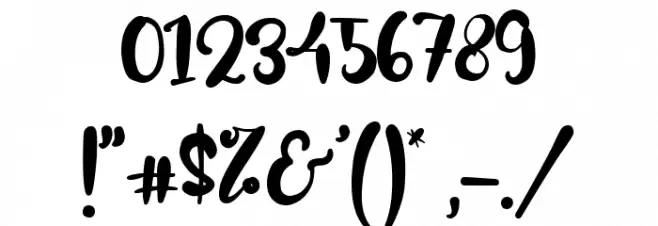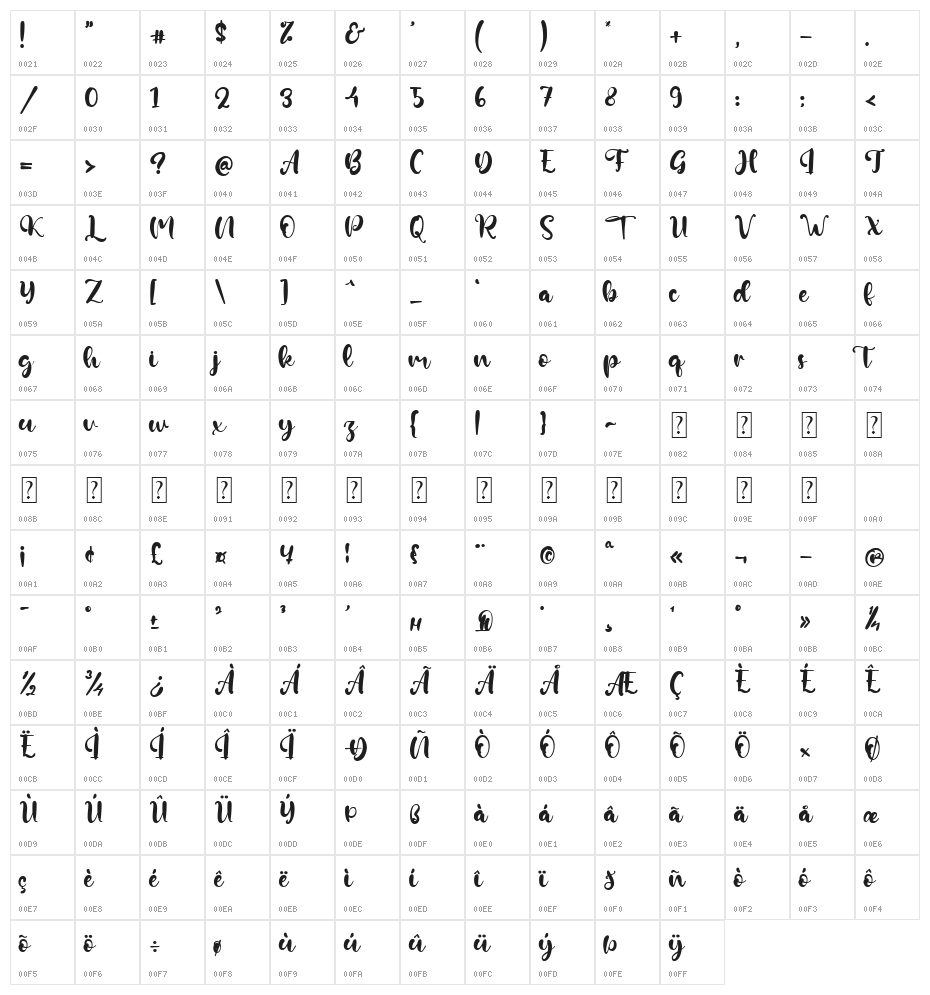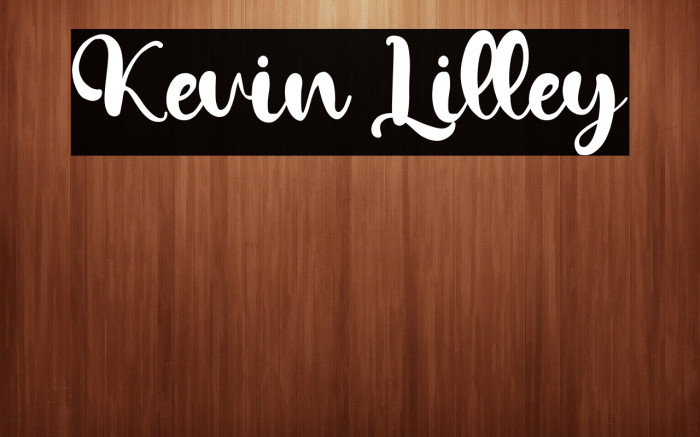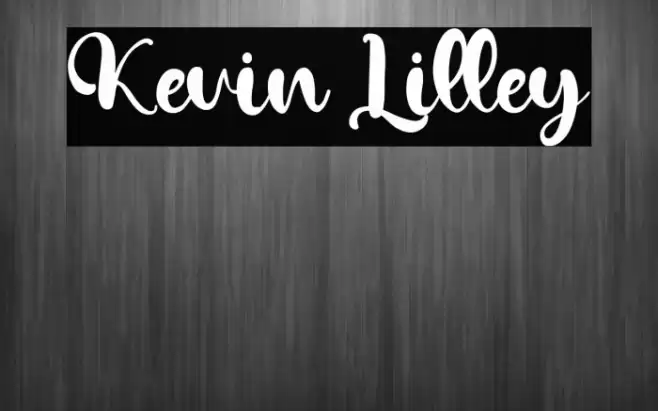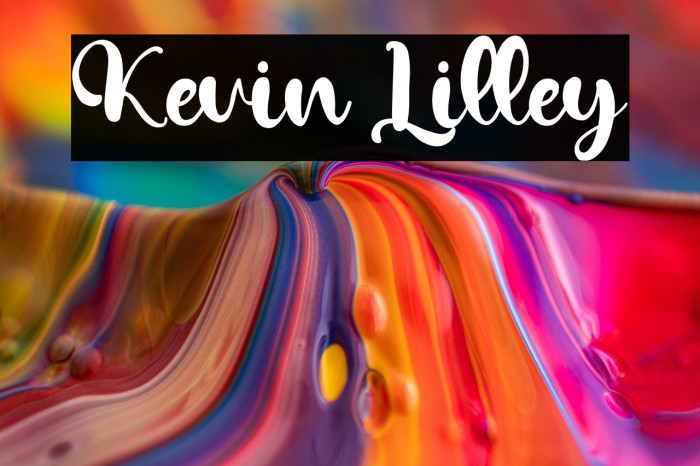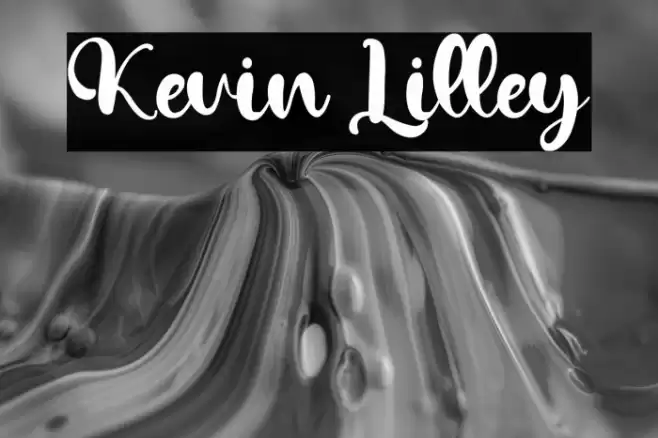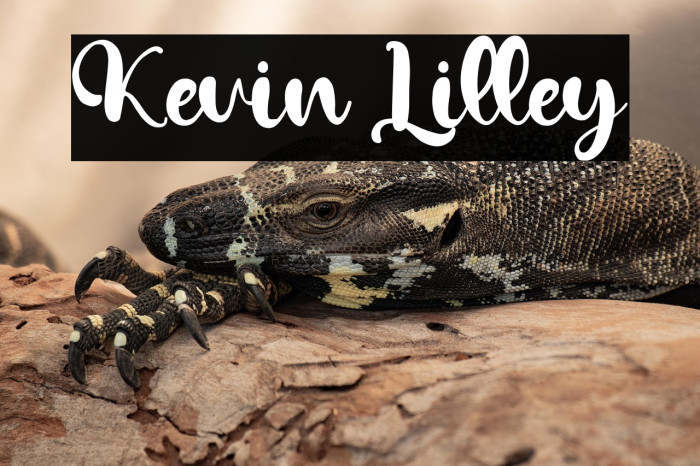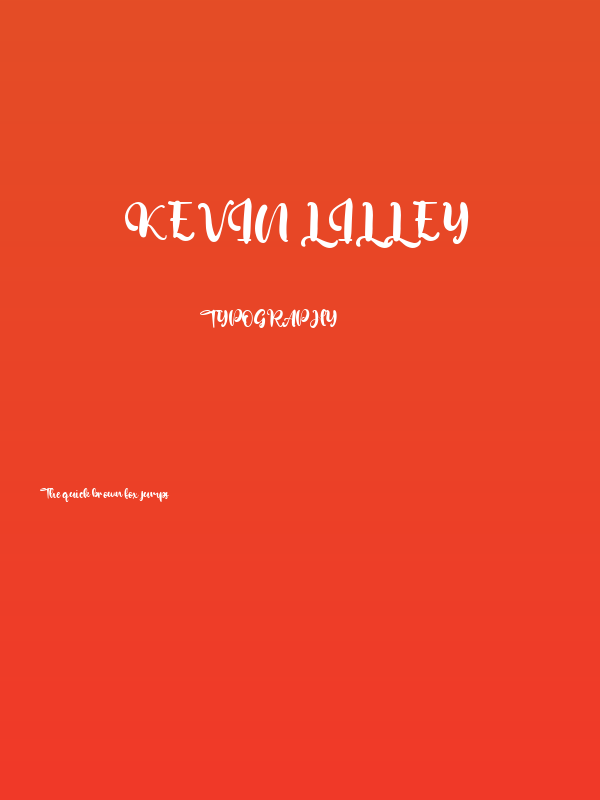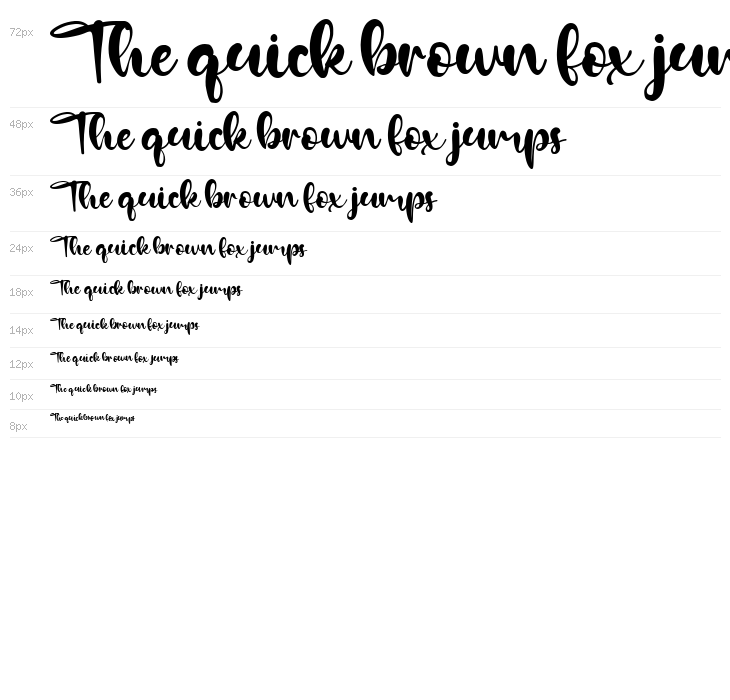
Kevin Lilley Font
Kevin Lilley Description
This font features a bold and expressive script style, characterized by its flowing, cursive letterforms that convey a sense of elegance and creativity. The uppercase letters are particularly ornate, with sweeping curves and flourishes that add a touch of sophistication. The lowercase letters maintain a consistent style, with rounded forms and smooth connections between characters. The numerals are distinct and easy to read, while the special characters complement the overall aesthetic with their playful yet refined appearance. This font's design is both artistic and functional, making it suitable for a variety of creative applications.